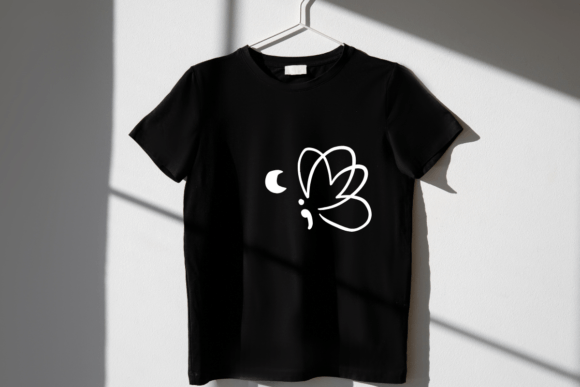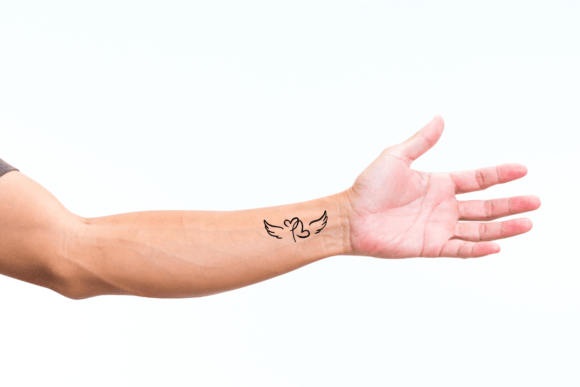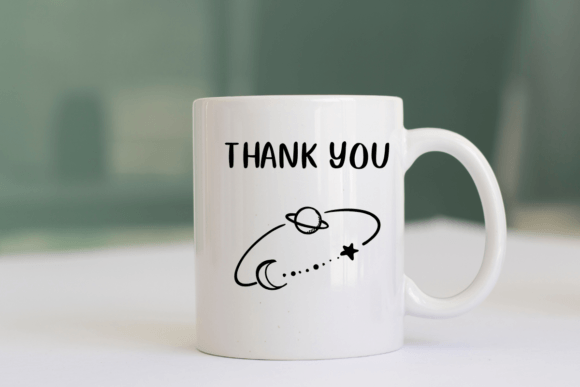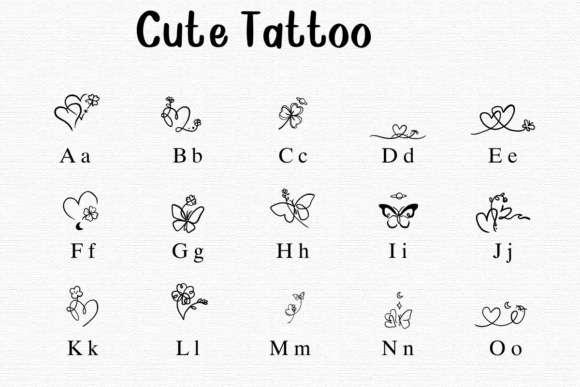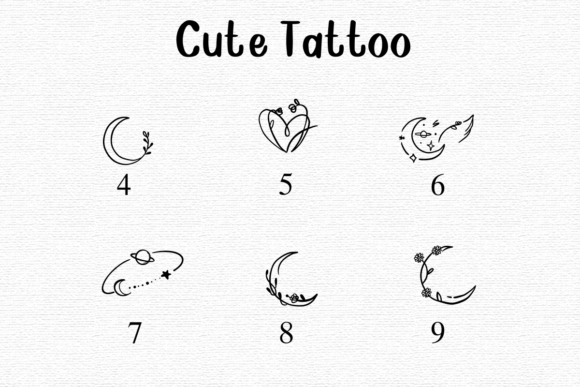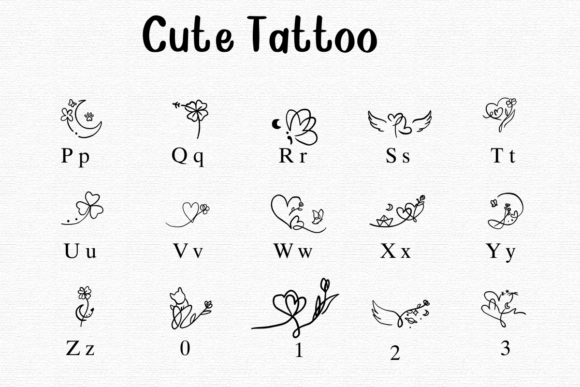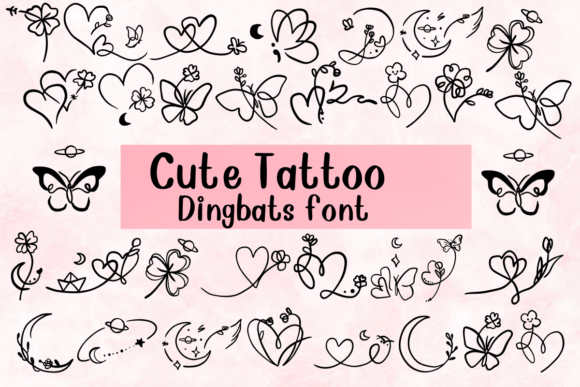
Cute Tattoo Font: Elevate Your Designs with a Delightful Sketch Style
Are you a designer, crafter, or DIY enthusiast looking for a unique and charming font to add a personal touch to your creative projects? Look no further than Cute Tattoo Font, a delightful dingbats font with a sketch style theme that’s perfect for a wide range of applications. In this article, we’ll explore the features and benefits of Cute Tattoo Font, and show you how it can enhance your designs and take your creativity to the next level.
What is Cute Tattoo Font?
Cute Tattoo Font is a dingbats font that features a charming sketch style theme. Dingbats fonts, also known as symbol fonts, are a type of font that consists of graphical symbols, such as icons, shapes, and illustrations, rather than traditional letterforms. Cute Tattoo Font takes this concept to the next level with its adorable and whimsical designs, perfect for adding a touch of personality to your projects.
Features of Cute Tattoo Font
Cute Tattoo Font boasts a range of features that make it an ideal choice for designers and crafters. Some of its key features include:
- Sketch style theme: Cute Tattoo Font features a charming sketch style theme that’s perfect for creating unique and eye-catching designs.
- Dingbats font: As a dingbats font, Cute Tattoo Font consists of graphical symbols, making it perfect for adding illustrations and icons to your designs.
- Wide range of applications: Cute Tattoo Font can be used for a wide range of creative projects, including wedding invitations, DIY crafts, decorations, logos, and more.
Creative Uses for Cute Tattoo Font
Cute Tattoo Font is a versatile font that can be used for a wide range of creative projects. Here are some ideas to get you started:
- Wedding invitations: Add a personal touch to your wedding invitations with Cute Tattoo Font’s charming sketch style designs.
- DIY crafts: Use Cute Tattoo Font to create unique and eye-catching designs for your DIY crafts, such as handmade cards, gift tags, and more.
- Decorations: Create custom decorations, such as wall art, banners, and garlands, using Cute Tattoo Font.
- Logos: Use Cute Tattoo Font to create custom logos for your business or brand.
- Social media graphics: Add a touch of personality to your social media graphics, such as Instagram posts and Facebook graphics, with Cute Tattoo Font.
Tips for Using Cute Tattoo Font
Here are some tips for getting the most out of Cute Tattoo Font:
- Experiment with different sizes and colors: Cute Tattoo Font looks great in a range of sizes and colors, so don’t be afraid to experiment and find the perfect combination for your design.
- Combine with other fonts: Cute Tattoo Font pairs well with other fonts, so try combining it with a script font or a bold sans-serif font to create a unique and eye-catching design.
- Use for illustrations: Cute Tattoo Font is perfect for creating illustrations, such as icons, graphics, and more.
Cute Tattoo Font is a delightful dingbats font with a sketch style theme that’s perfect for designers, crafters, and DIY enthusiasts. With its wide range of applications, ease of use, and charming designs, Cute Tattoo Font is an ideal choice for anyone looking to add a personal touch to their creative projects. Whether you’re creating wedding invitations, DIY crafts, decorations, logos, or social media graphics, Cute Tattoo Font is sure to elevate your designs and take your creativity to the next level.
Get Creative with Cute Tattoo Font